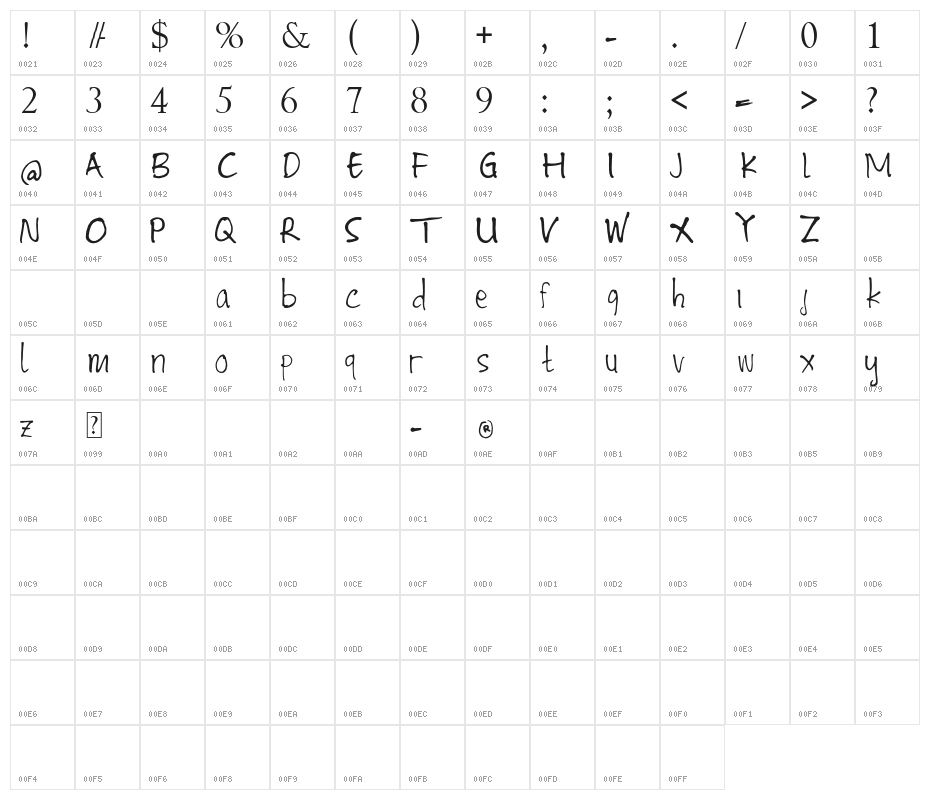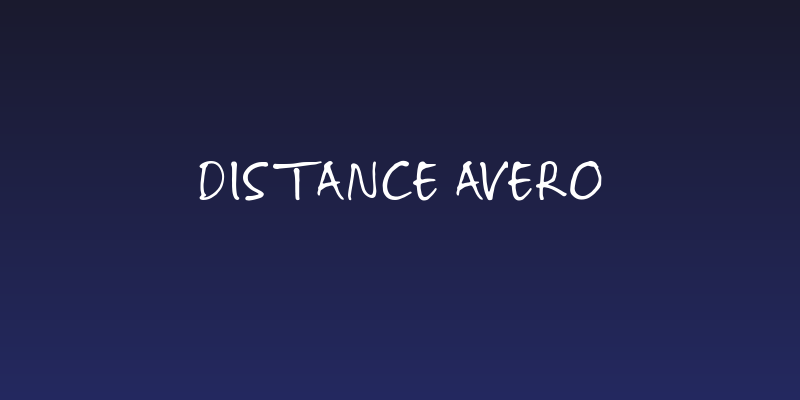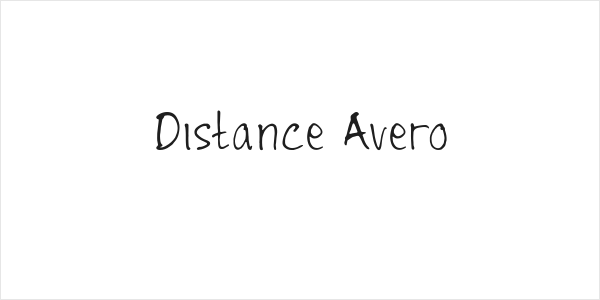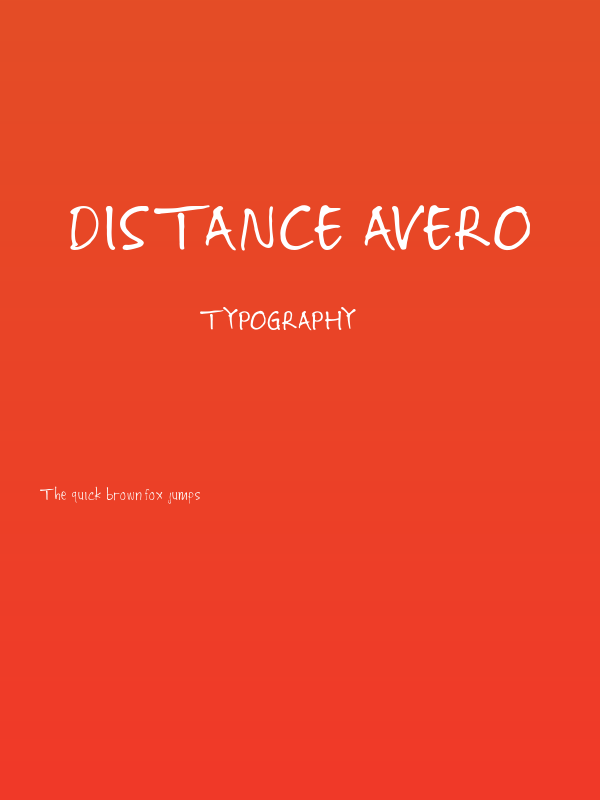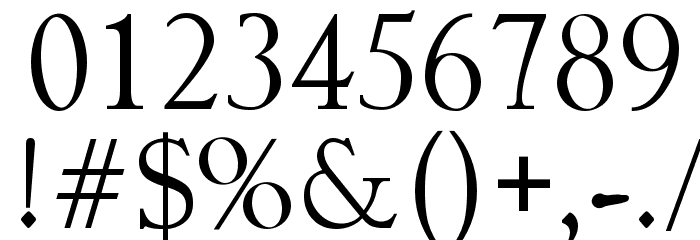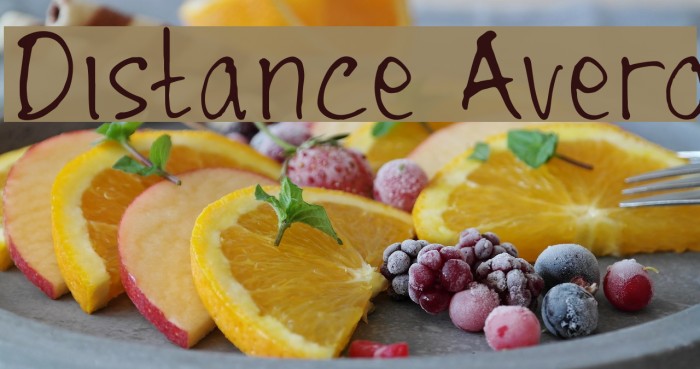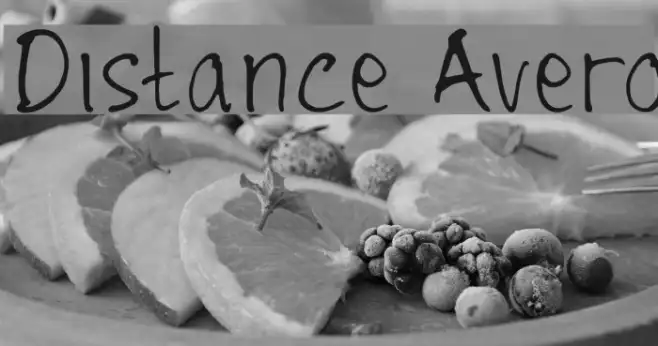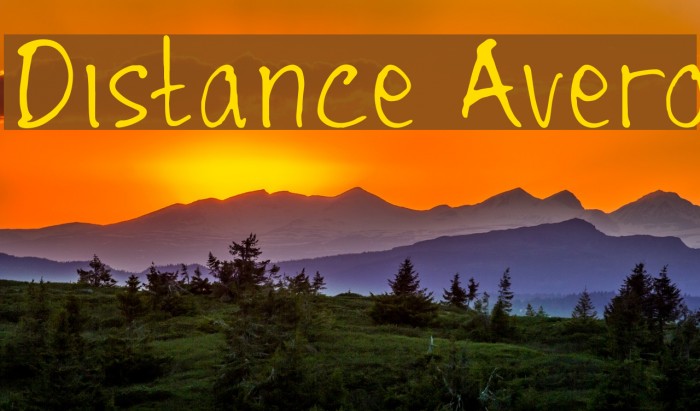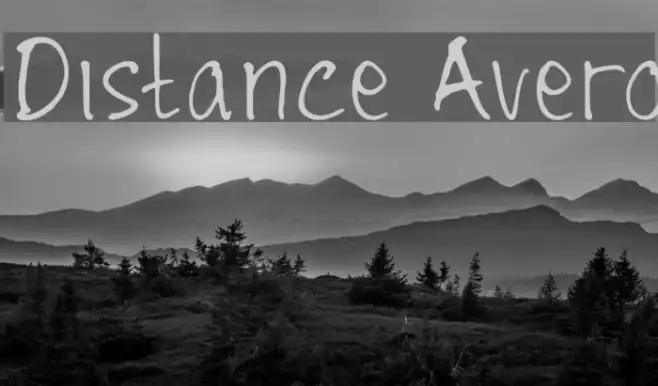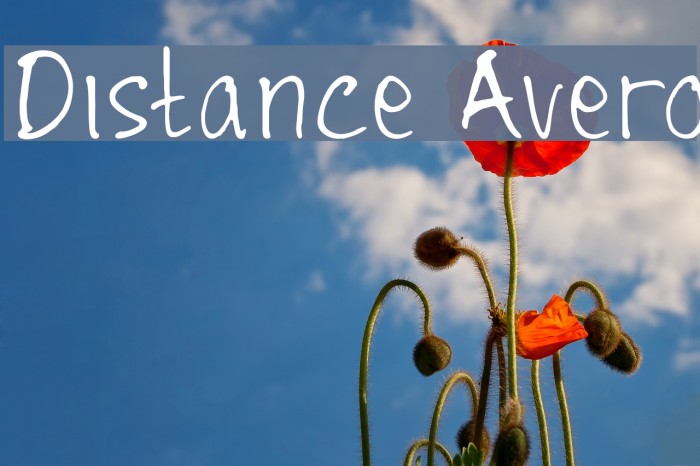
Distance Avero Font
Distance Avero Description
This font features a playful and informal handwritten style, characterized by its irregular strokes and whimsical curves. The letters have a casual, friendly appearance with a slight slant, giving it a dynamic and lively feel. The uppercase letters are bold and slightly larger than the lowercase, which are more rounded and compact. Numbers and special characters maintain the same playful aesthetic, making the font versatile for various creative applications. The overall design is approachable and engaging, perfect for projects that require a personal touch.
| Proposed Projects | Ideal for greeting cards, children's books, casual branding, and social media graphics. |